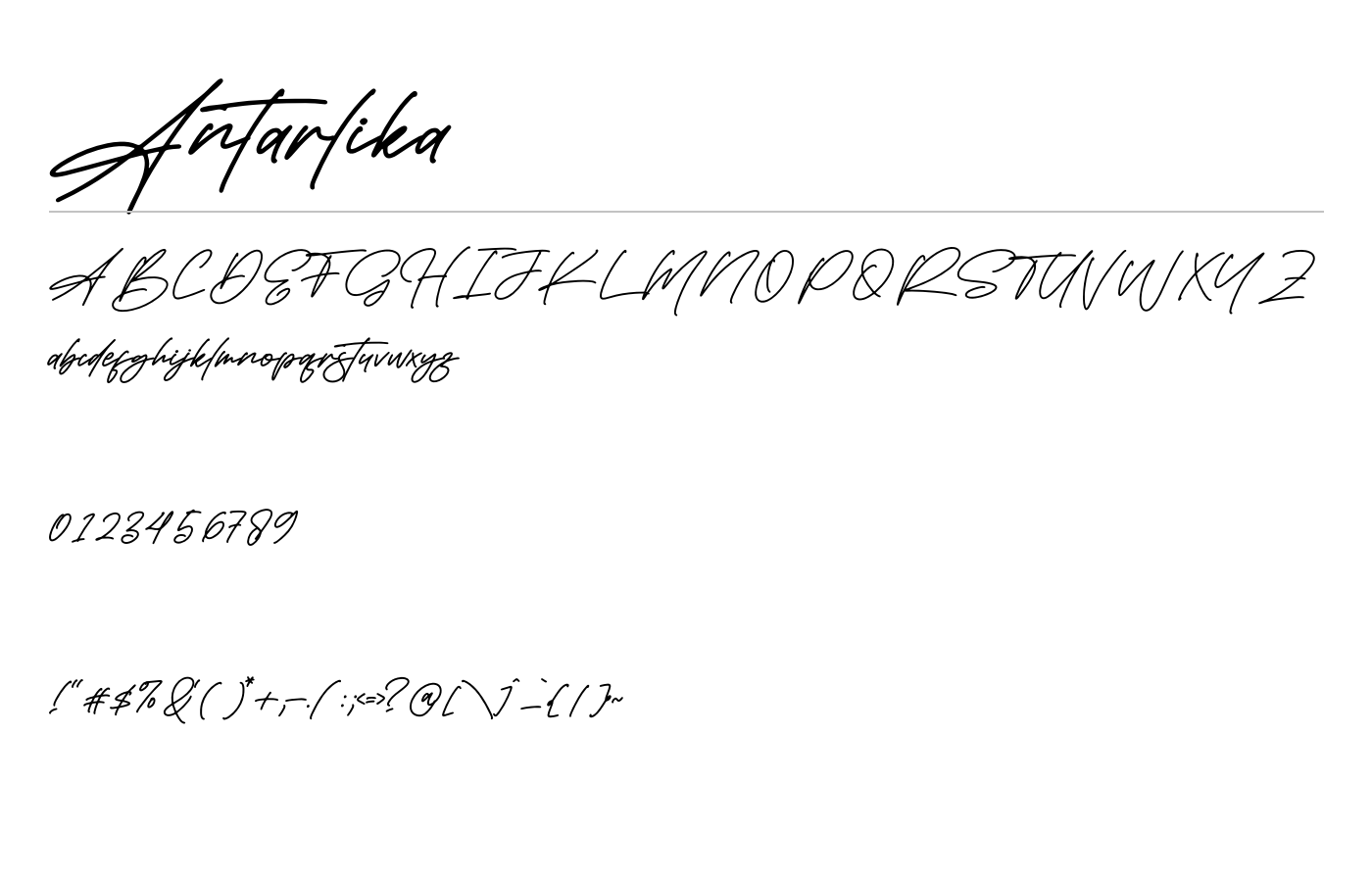
Antarlika is a delicate script font characterized by its elegant, slightly elongated letterforms and fluid, natural strokes that mimic authentic handwriting. Its light weight and airy spacing give it a sophisticated yet approachable feel, making it ideal for personal branding, invitations, and stylish logos where a touch of refinement and creativity is desired. This font works beautifully in designs aiming for an intimate, artistic, and graceful expression.
Antarlika Font
About Antarlika Font